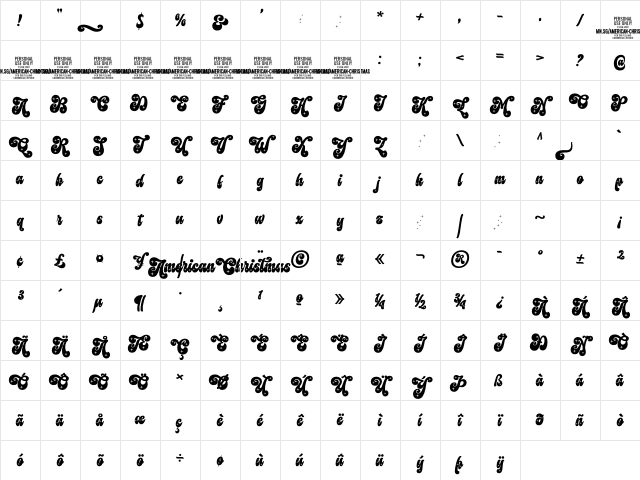
American Christmas 2 PERSONAL Regular
Foundry: Mans Greback AB
Designer: Mans Greback
Design Context for American Christmas 2 PERSONAL
American Christmas 2 PERSONAL is a composed and adaptable typeface that performs quietly and consistently across a wide range of design contexts.